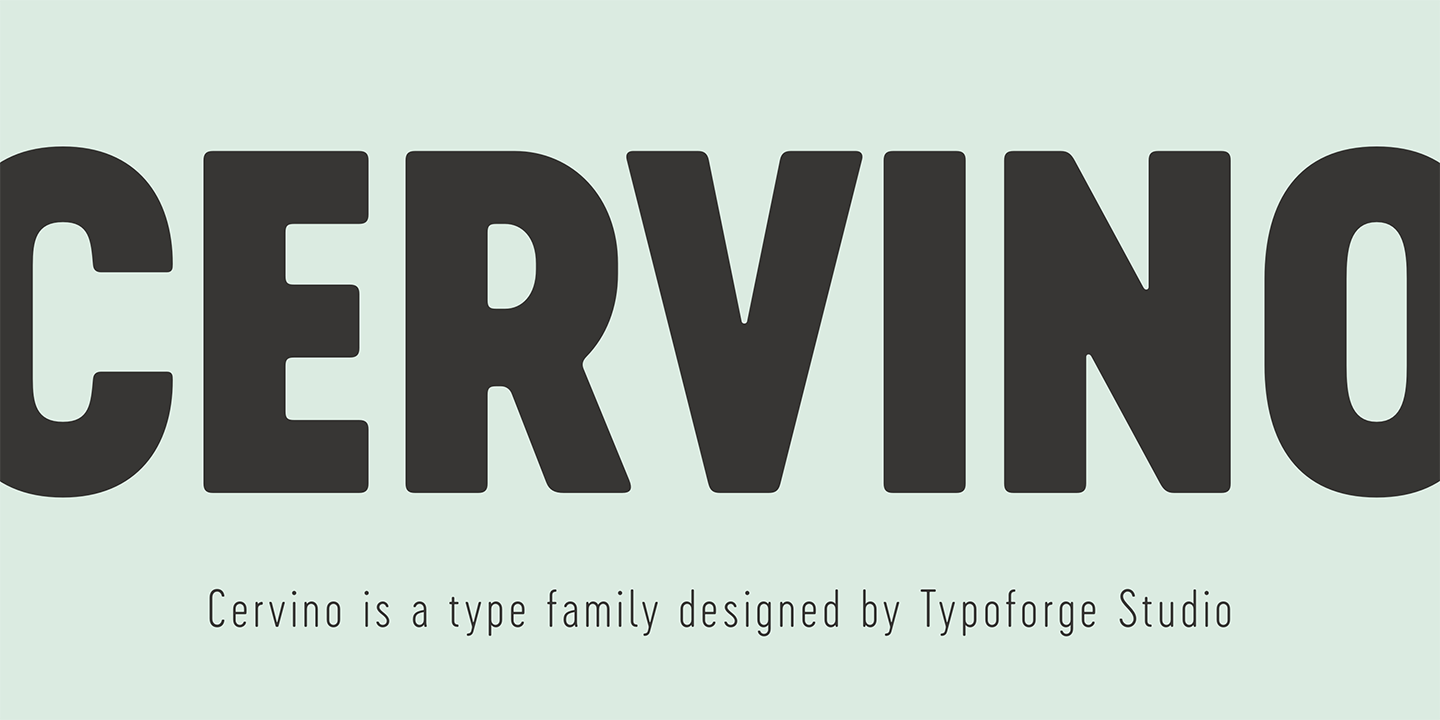
The Cervino Font is exceptionally versatile and shines in a wide array of applications where clarity, high-end aesthetics, and a modern appeal are paramount. Its often geometric or humanist sans-serif design, characterized by clean lines, open forms, and impeccable balance, makes it an ideal choice for corporate branding, sophisticated website interfaces, and impactful editorial headlines. It's perfect for app design, UI/UX elements, and extensive digital publications, ensuring effortless readability and a polished user experience. Furthermore, consider Cervino Font for luxury product packaging, fashion editorials, and advertising campaigns that aim for a contemporary and refined appeal. Its versatility ensures it can seamlessly transition from commanding headlines to clear body text, maintaining visual harmony and strong communication.
What makes the Cervino Font so exciting is its remarkable blend of understated elegance and uncompromising functionality. It often features neutral yet distinct letterforms that are designed for optimal readability at various sizes, making it a true workhorse font. This characteristic allows it to communicate a sense of innovation, exclusivity, and thoughtful design, making your message resonate with an audience that appreciates refined aesthetics and modern vision. It's a font that doesn't just display text; it enhances the visual narrative, adding a layer of contemporary charm and polished appeal to any creative endeavor. Its unique aesthetic ensures your work will stand out with a memorable and refined presence.
The Cervino Font family typically boasts a comprehensive range of weights to maximize its utility and allow for robust typographic hierarchies. You'll often find a wide selection, from Hairline and Thin to Light, Regular, Medium, SemiBold, and Bold, usually accompanied by corresponding italic styles. More extensive families might even include ExtraBold or Black weights, providing even greater flexibility for creating distinct visual impacts, from delicate headlines to strong emphasis. This broad spectrum ensures designers can maintain a consistent visual theme while adapting the font to diverse design needs and contexts.